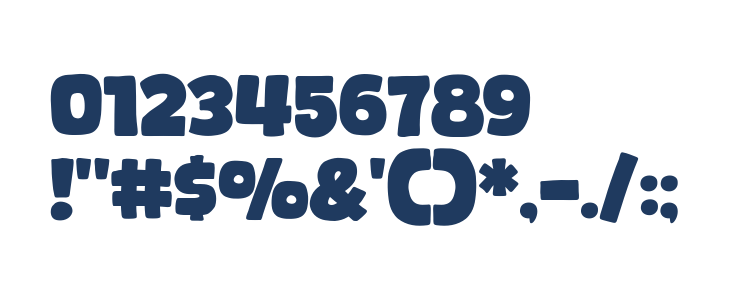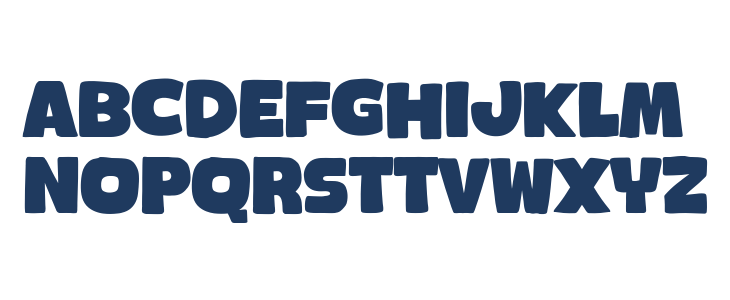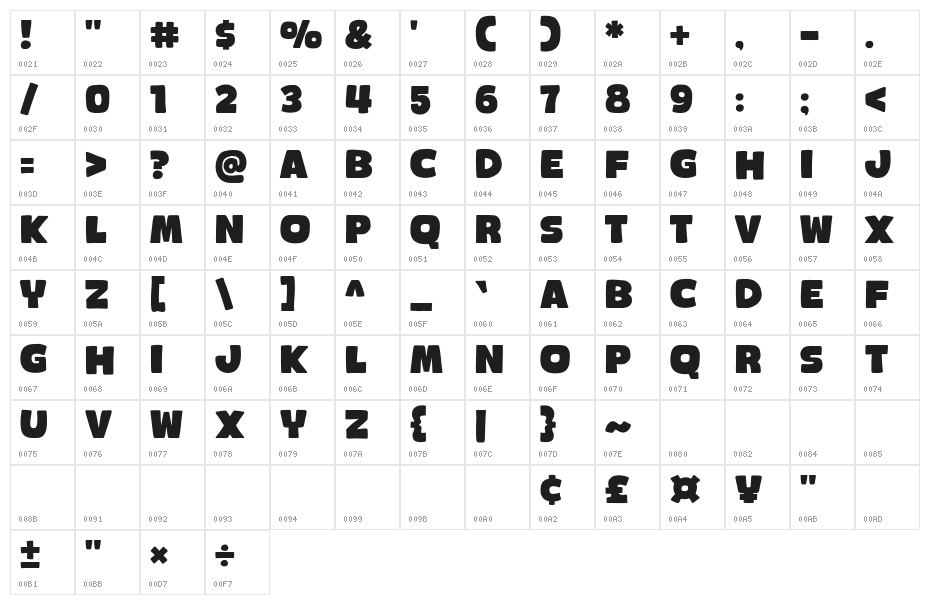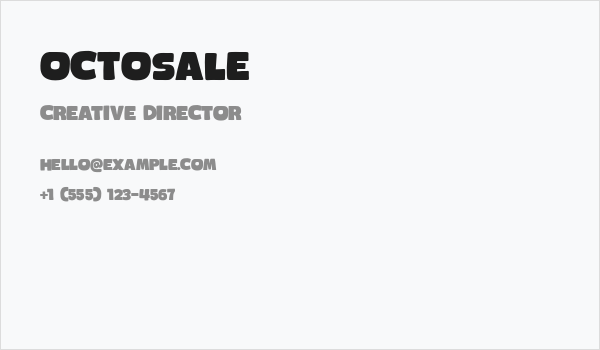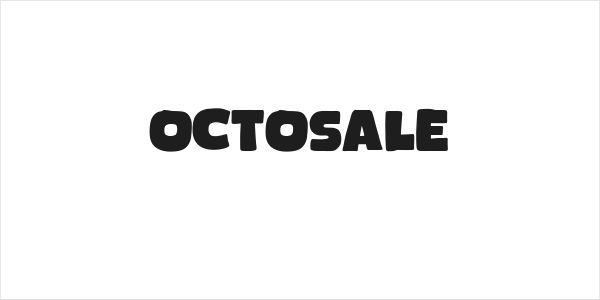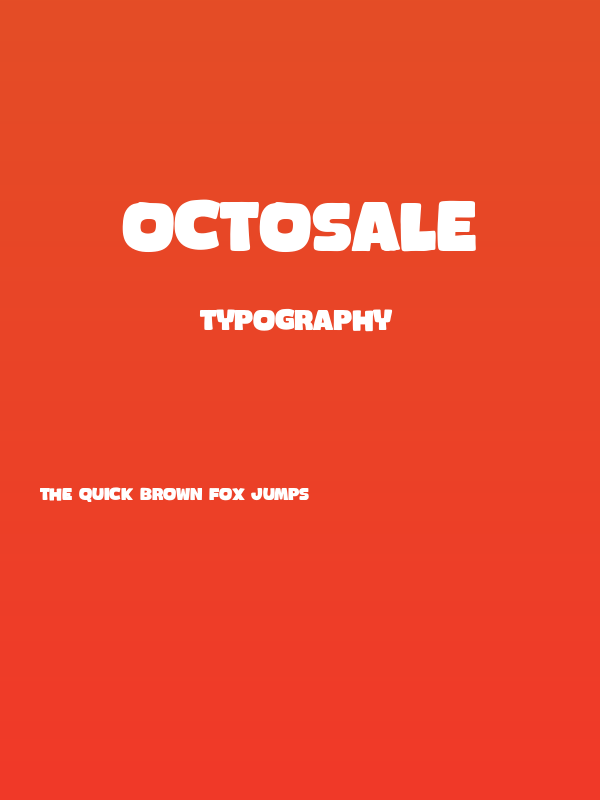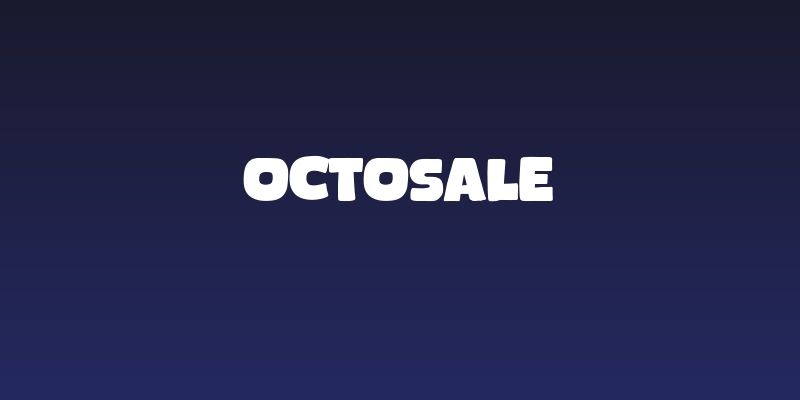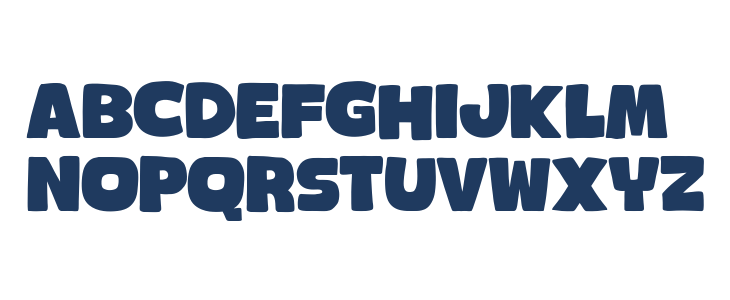
Octosale Font
Octosale Description
A bold, rounded, and playful sans-serif font with thick strokes and soft edges, giving it a cartoonish and friendly appearance. The characters are wide and have consistent stroke weight, with minimal contrast and generous spacing.
| Width | Expanded |
| Overall Style | Playful, Decorative, Modern |
| Use Case | Headlines, Logos, Posters, Packaging |
| Proposed Projects | Children's books, posters, toy packaging, party invitations, branding for playful or casual products. |